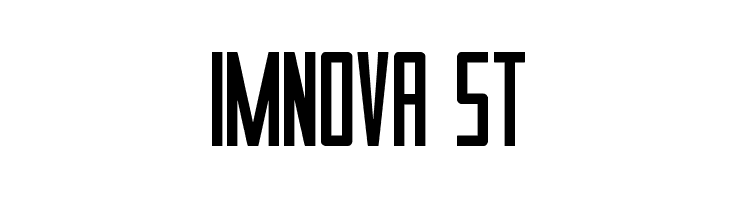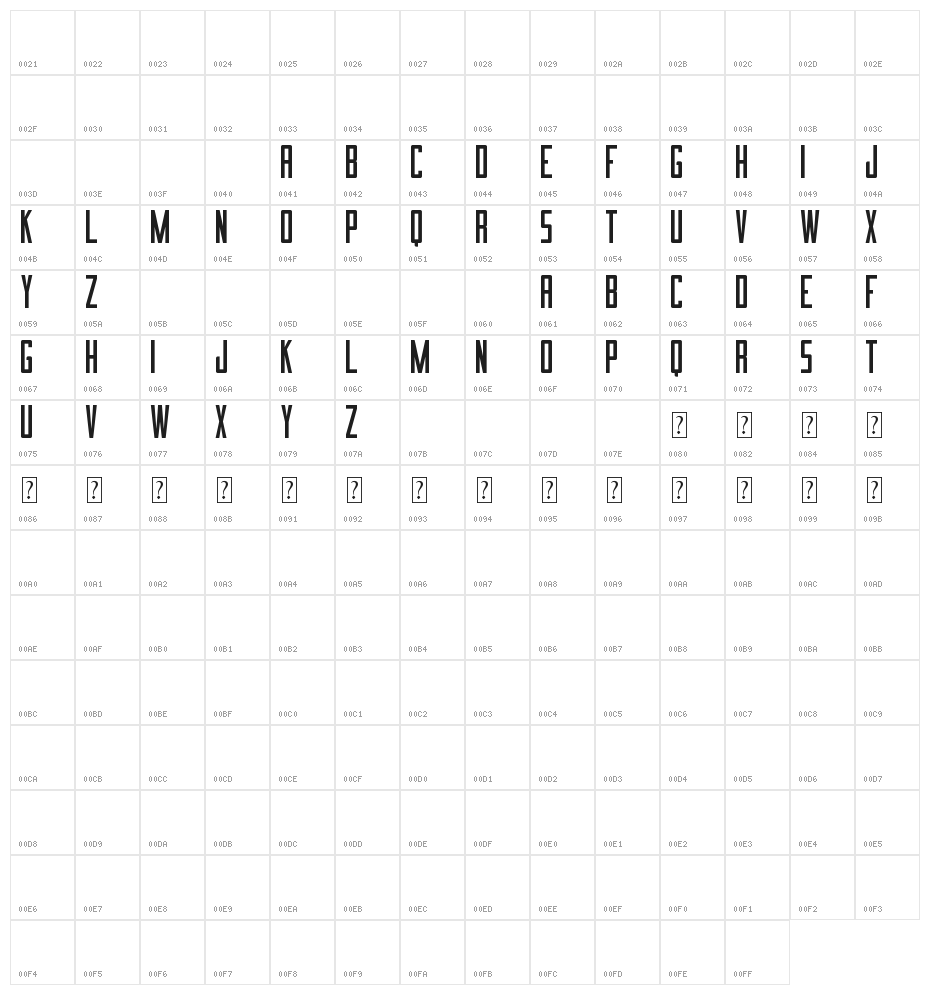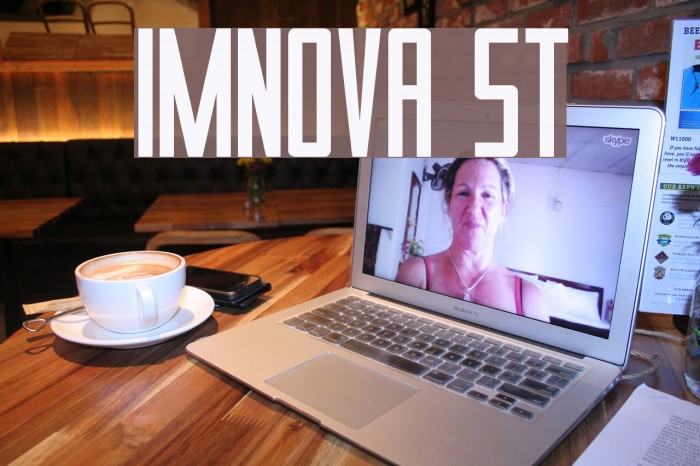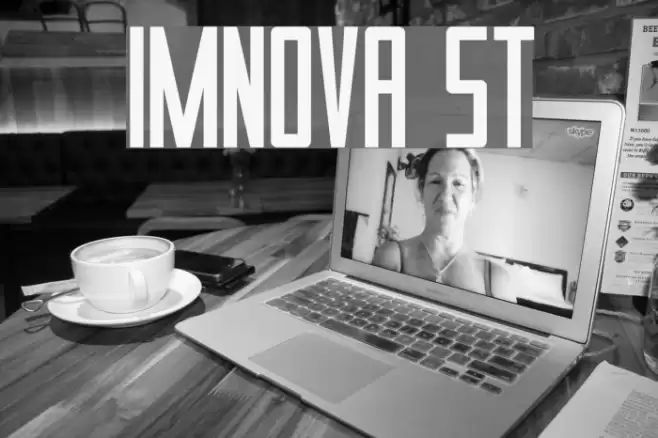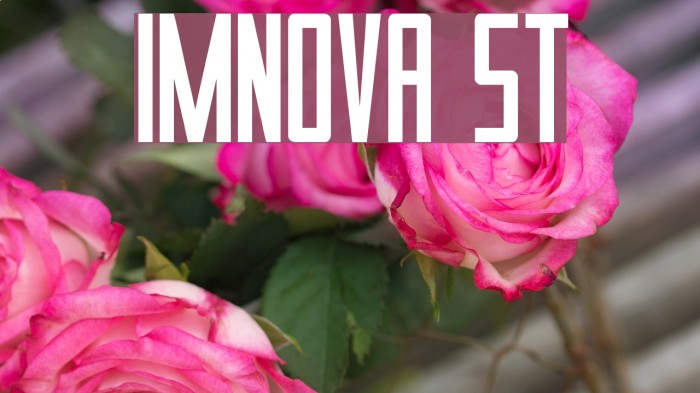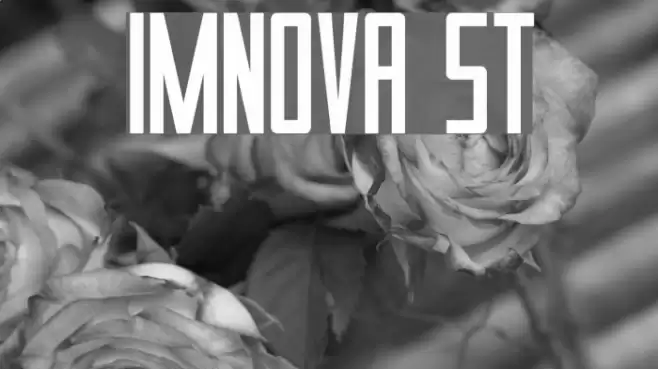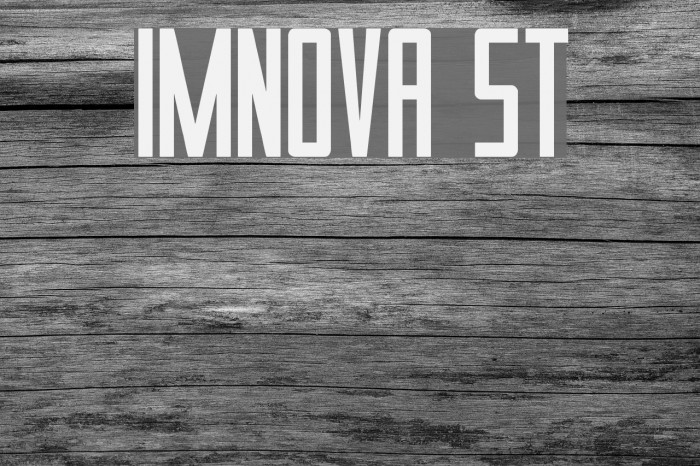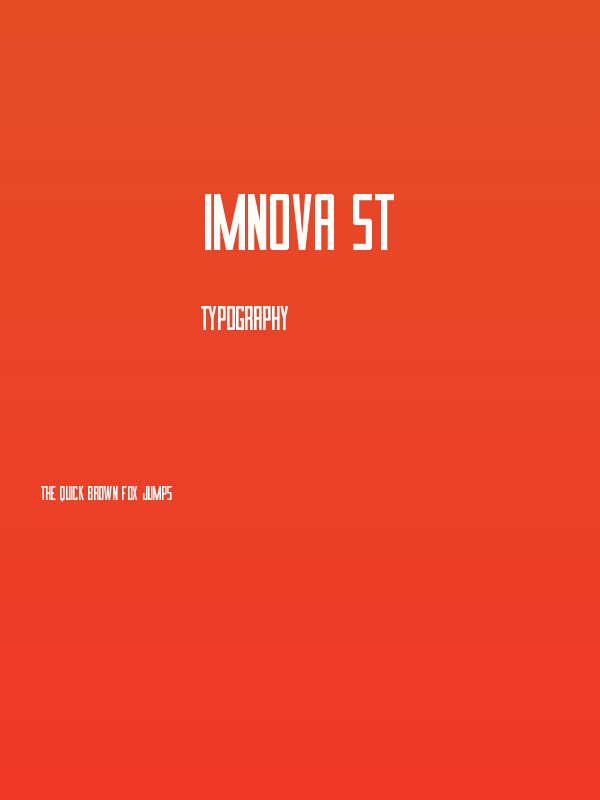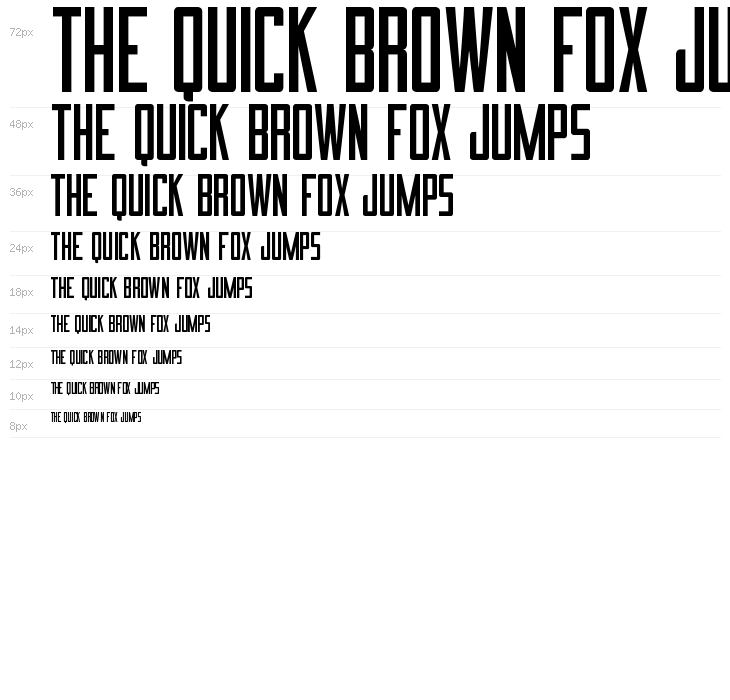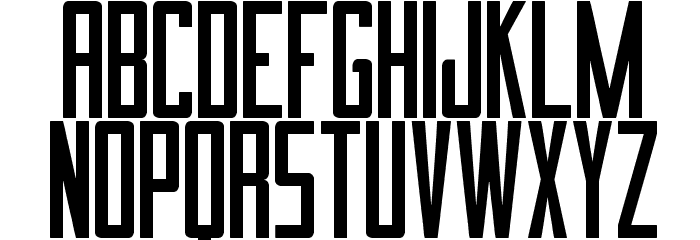
Imnova St Font
Imnova St Description
This font features a bold, geometric design with a strong presence. The characters are tall and narrow, giving it a condensed appearance. The strokes are consistent in thickness, contributing to a uniform look across all letters. The uppercase letters are particularly striking, with sharp angles and clean lines that create a modern and assertive aesthetic. The overall style is highly legible, making it suitable for impactful headlines and titles. Its boldness and condensed form make it ideal for designs that require a strong visual statement.
| Proposed Projects | Ideal for branding, poster design, magazine covers, and any project requiring a strong, modern typeface. |